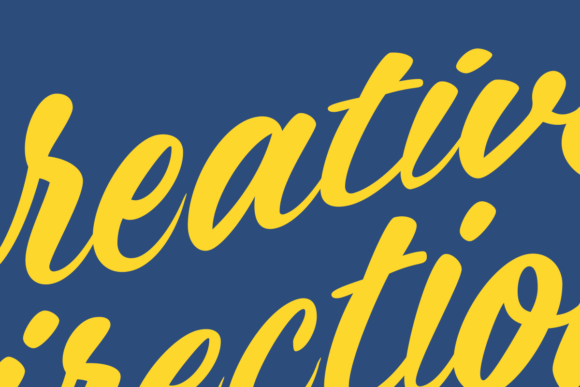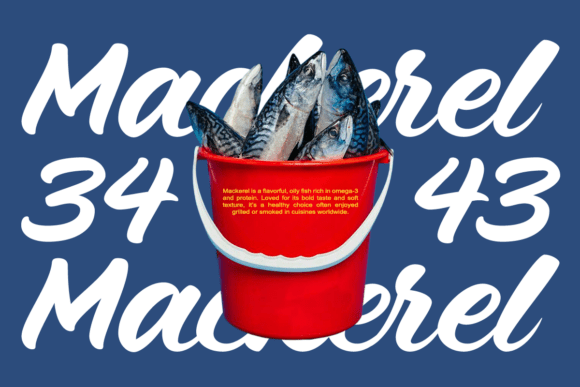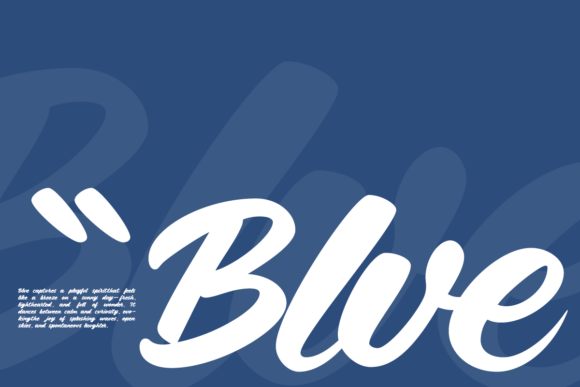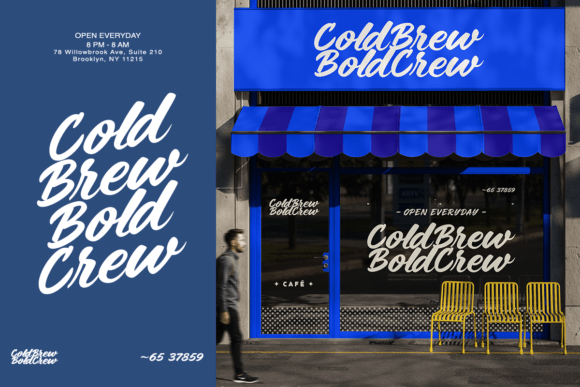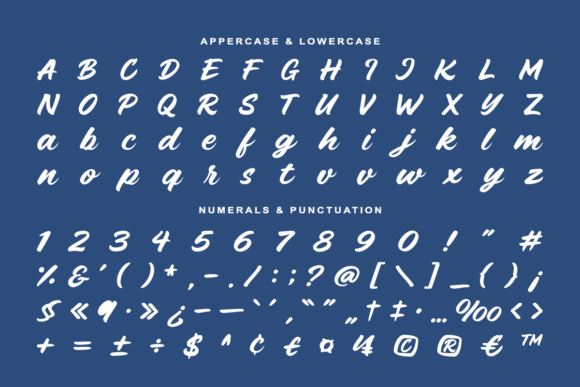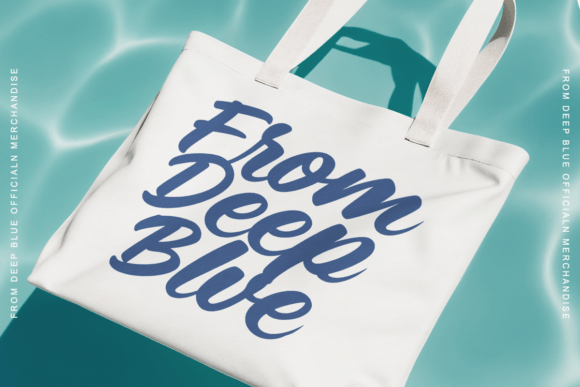
Introduction to Jollira Ralenia Font
Have you ever sat at your desk, staring at a blank canvas, waiting for inspiration to strike? For designers, those moments of creative block can be daunting, but sometimes all it takes is the right tool to get the creative juices flowing. Enter the Jollira Ralenia Font, a dynamic brush script display typeface that captures the expressive movement of hand-painted lettering.
This stunning font is a game-changer for designers looking to add a touch of personality to their creative projects. With its high-quality, brush-like strokes, the Jollira Ralenia Font is perfect for branding identities, product packaging, and editorial headlines that require a bold, eye-catching look. Whether you’re working on a design project with a transparent background or need a versatile font for social media visuals, the Jollira Ralenia Font is an invaluable resource that’s sure to elevate your design game.
Key Features of Jollira Ralenia Font
- Unique, elegant script font ideal for creative projects requiring a touch of sophistication.
- Comes with a transparent background, allowing for seamless integration into any design.
- Supports a wide range of languages, including Latin-based scripts and Cyrillic alphabets.
- Includes a comprehensive character set, including uppercase and lowercase letters, numbers, and punctuation marks.
Honest Review: Jollira Ralenia Font
I recently stumbled upon the Jollira Ralenia Font, and I must say it’s a hidden gem in the world of design resources. This font has been a game-changer for my creative projects, and I’m excited to share my thoughts with you.
What works well: ✨ The Jollira Ralenia Font offers a high-quality design experience with its elegant and modern aesthetic. It’s perfect for projects that require a touch of sophistication and whimsy. The font is available for free download, making it an excellent choice for designers on a budget.
- Supports a transparent background, allowing for seamless integration with any design project
- Features a unique and stylish design that’s sure to impress
Limitations: ⚠️ While the Jollira Ralenia Font is an excellent choice for most design projects, it may not be suitable for projects that require a more formal or traditional look. Additionally, the font may not be compatible with all operating systems or software.
Overall, I’m thoroughly impressed with the Jollira Ralenia Font. Its high-quality design, unique aesthetic, and free download make it an excellent addition to any designer’s toolkit. If you’re looking for a font that will elevate your creative projects, I highly recommend giving the Jollira Ralenia Font a try.
Tips for Getting the Most Out of Jollira Ralenia Font
Use the Jollira Ralenia Font in conjunction with a transparent background to create visually striking designs. Experiment with different font sizes, colors, and styles to add depth and interest to your project.
The Jollira Ralenia Font is ideal for design projects requiring a creative, elegant touch. Use it for wedding invitations, branding materials, or any project that demands a high-quality, design resource.